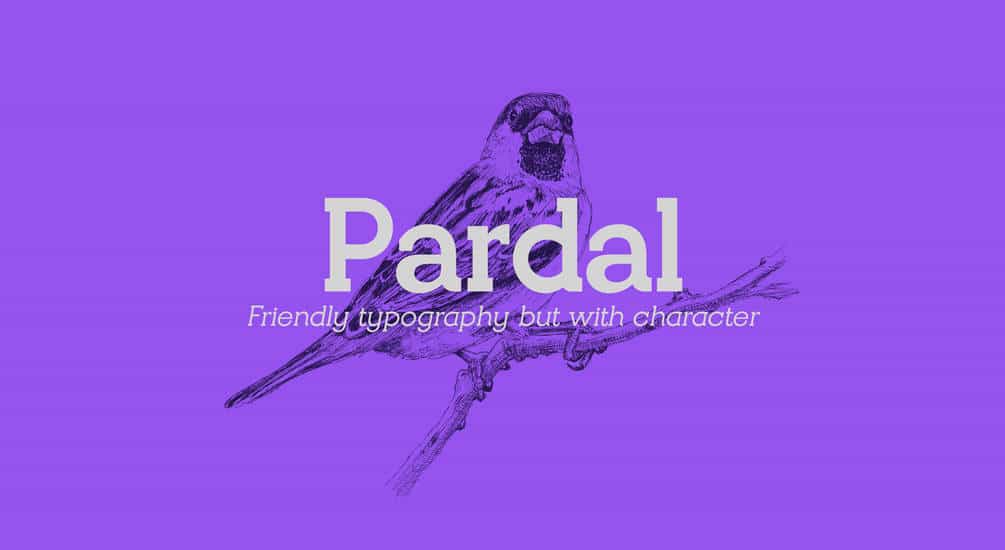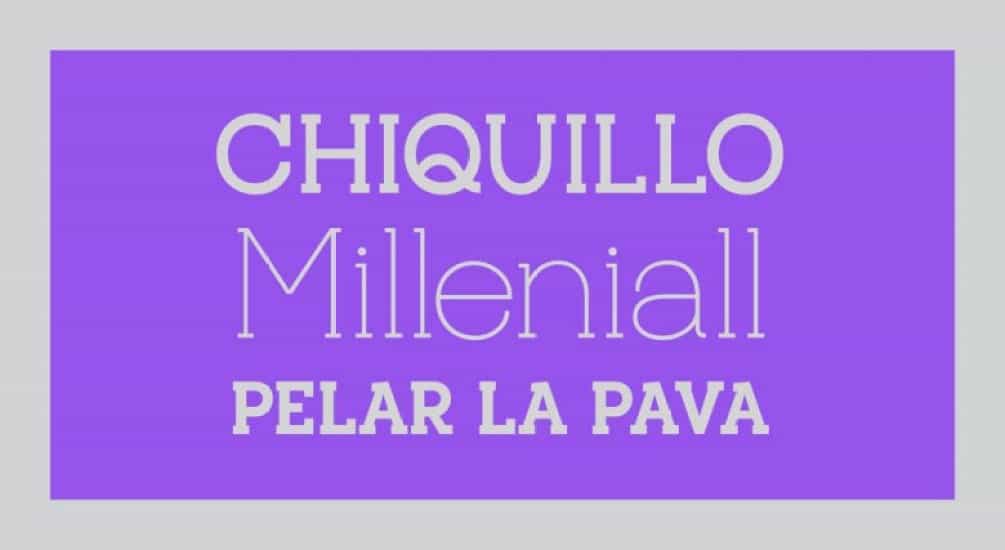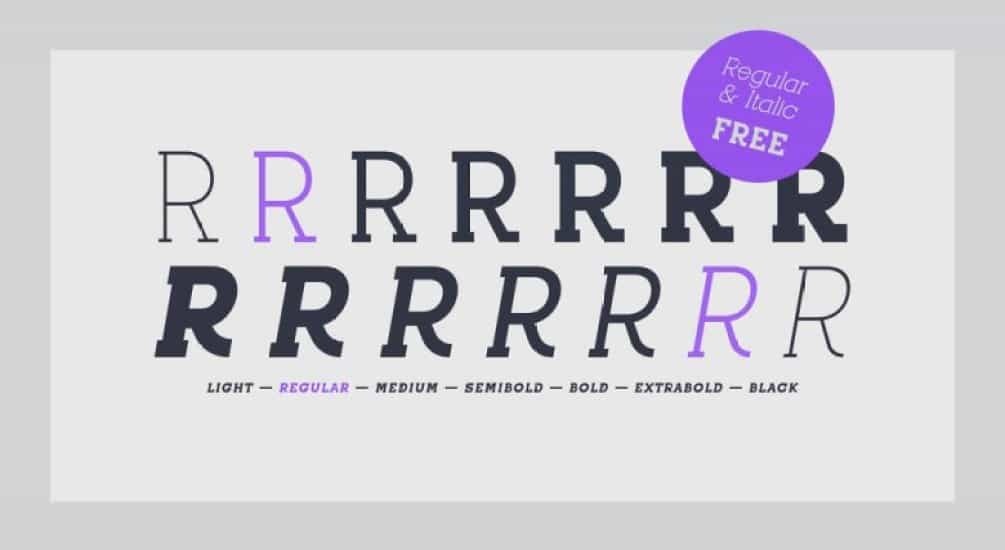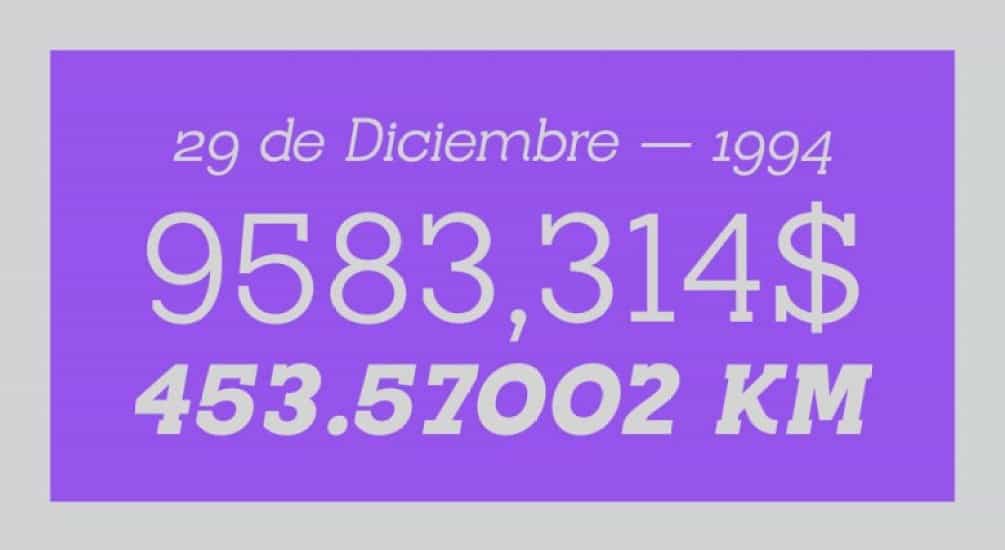
Introducing Pardal Typeface! It is the creation of bydani and it is also shared by him. Pardal is a very strong slab serif with 7 weights and their corresponding italics. The idea for the design came through translating my grandfather’s main adjectives into a font, hence Pardal is characterized by strong serifs and clean lines with slight curves that make it look more humanist and friendly.